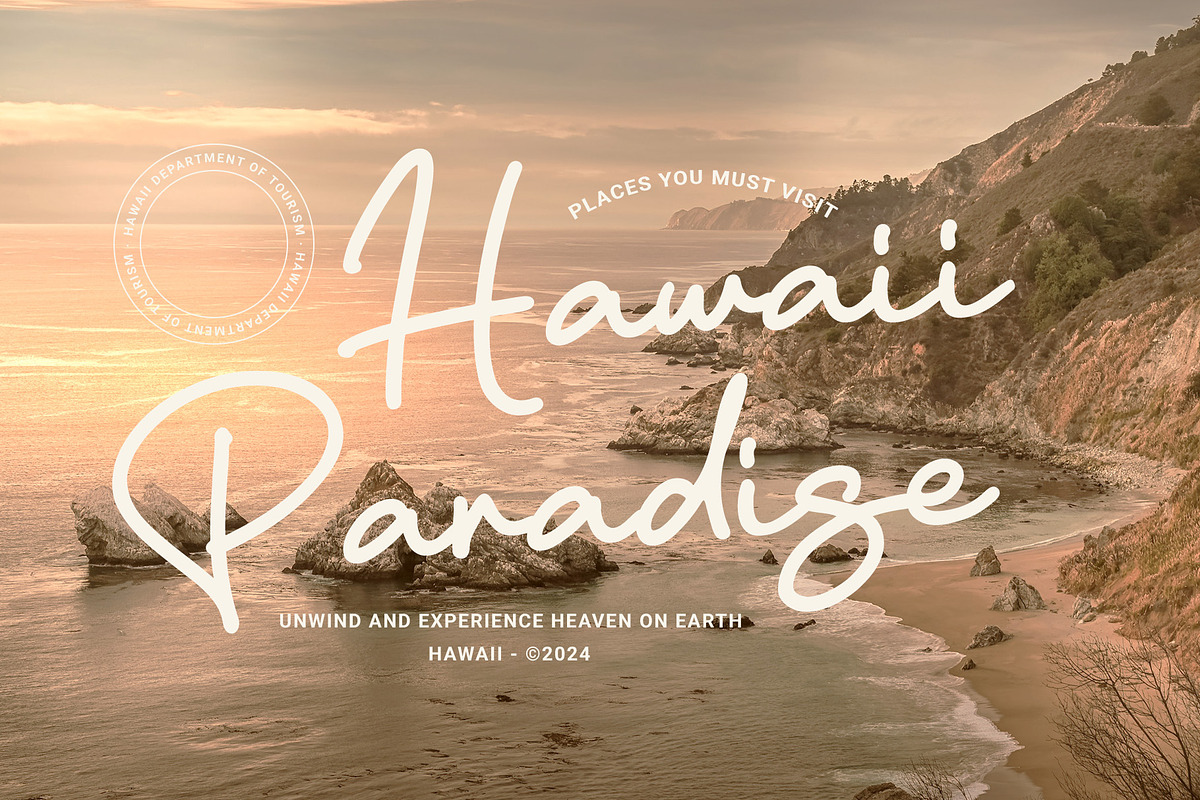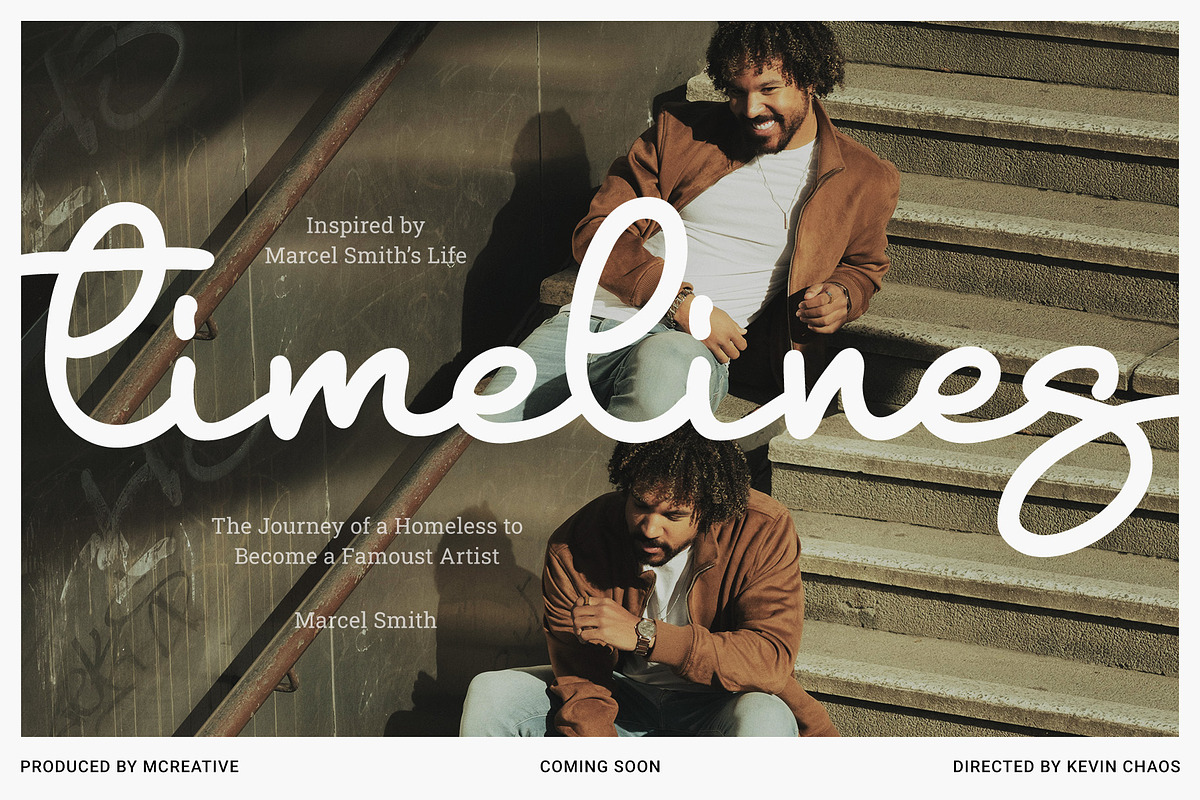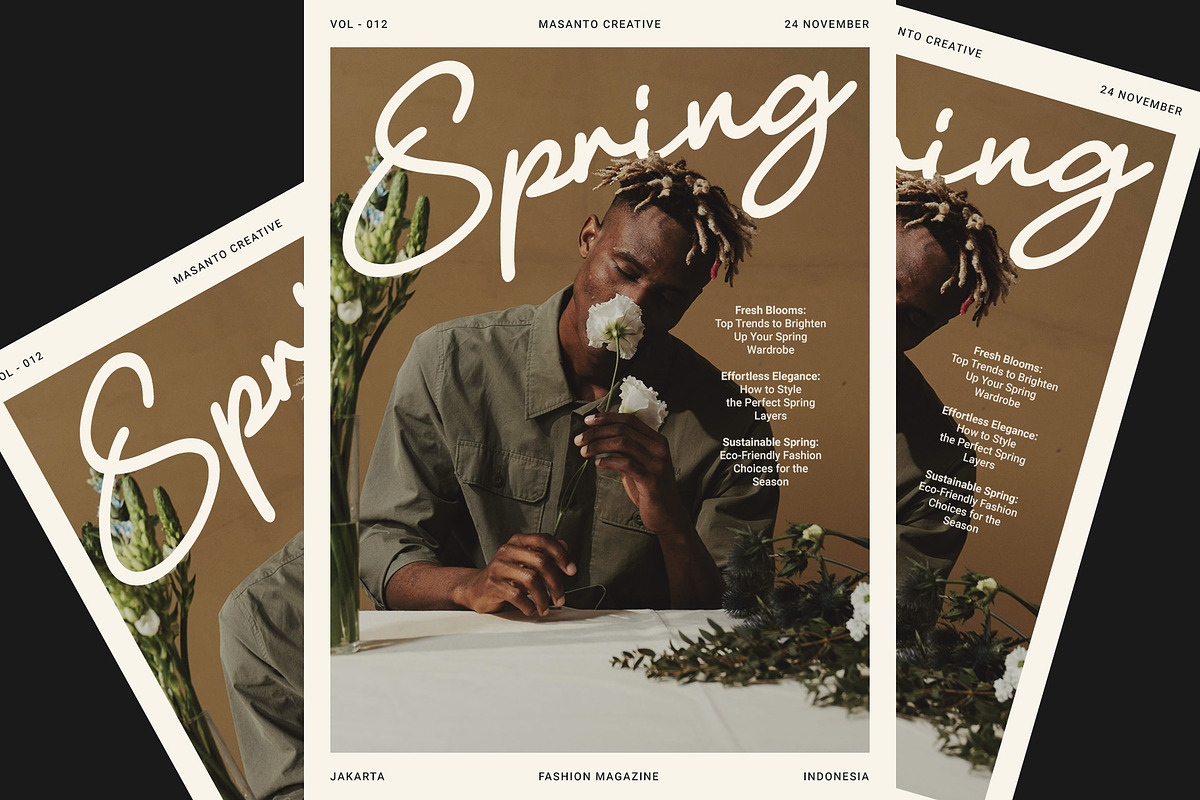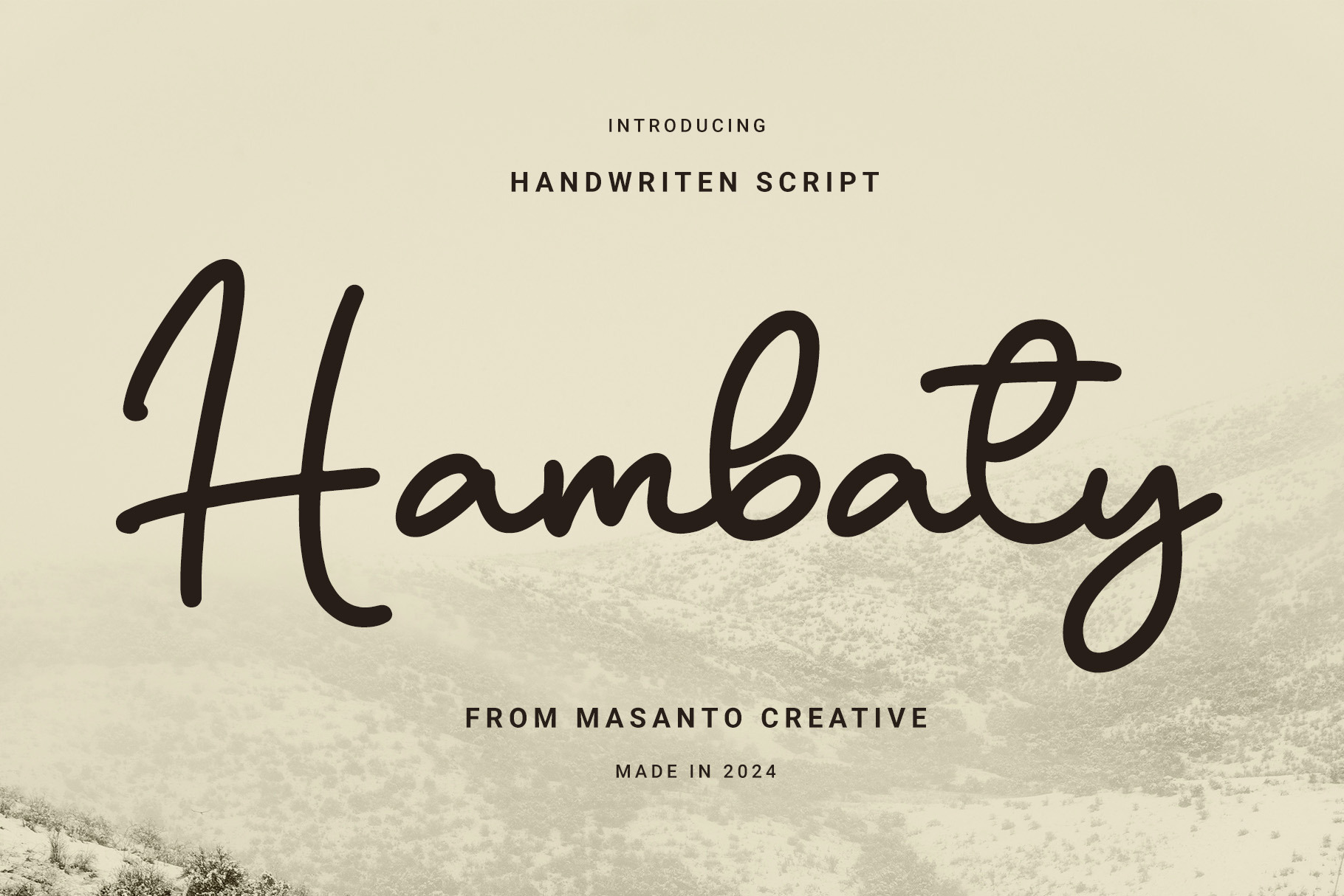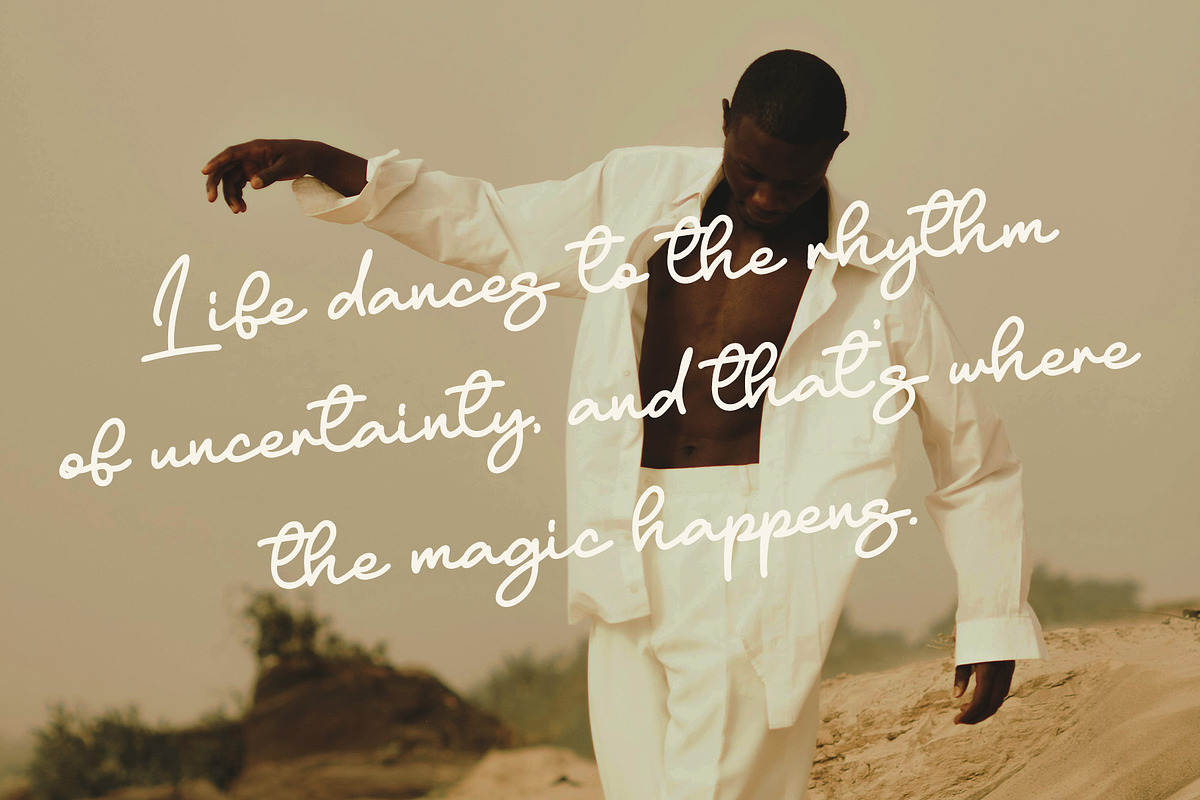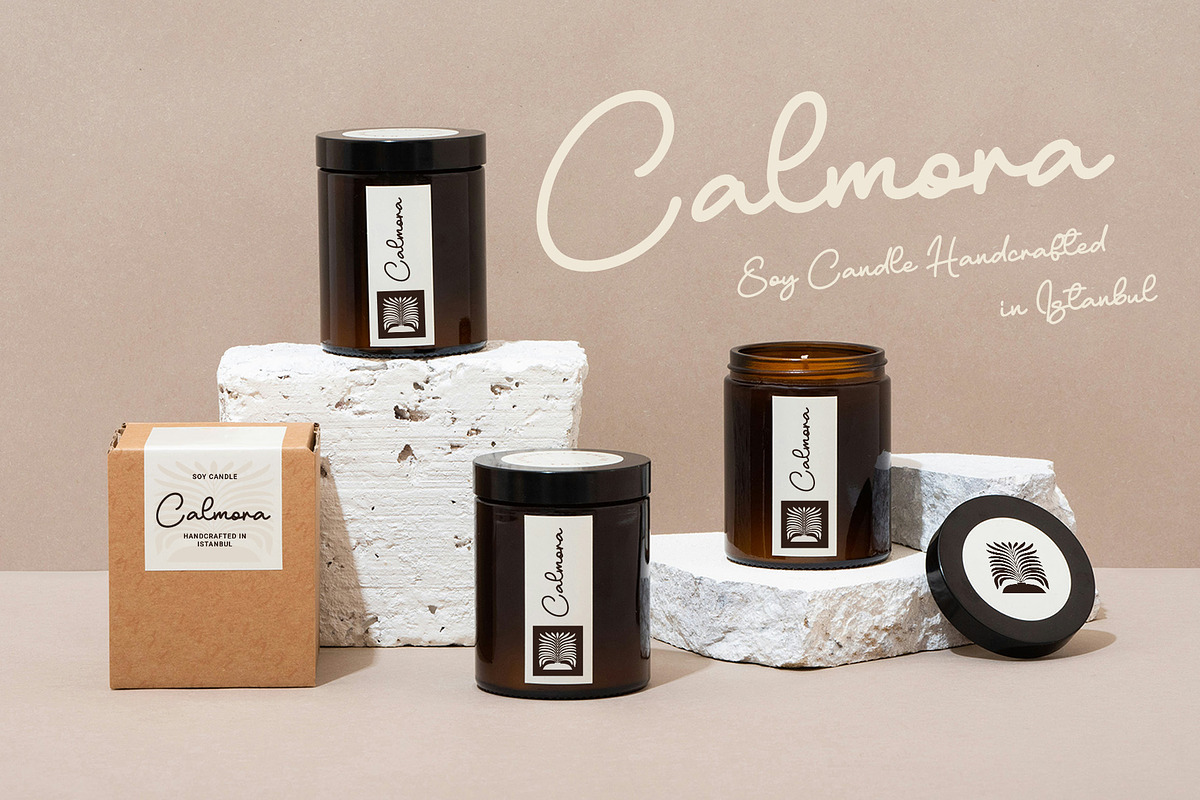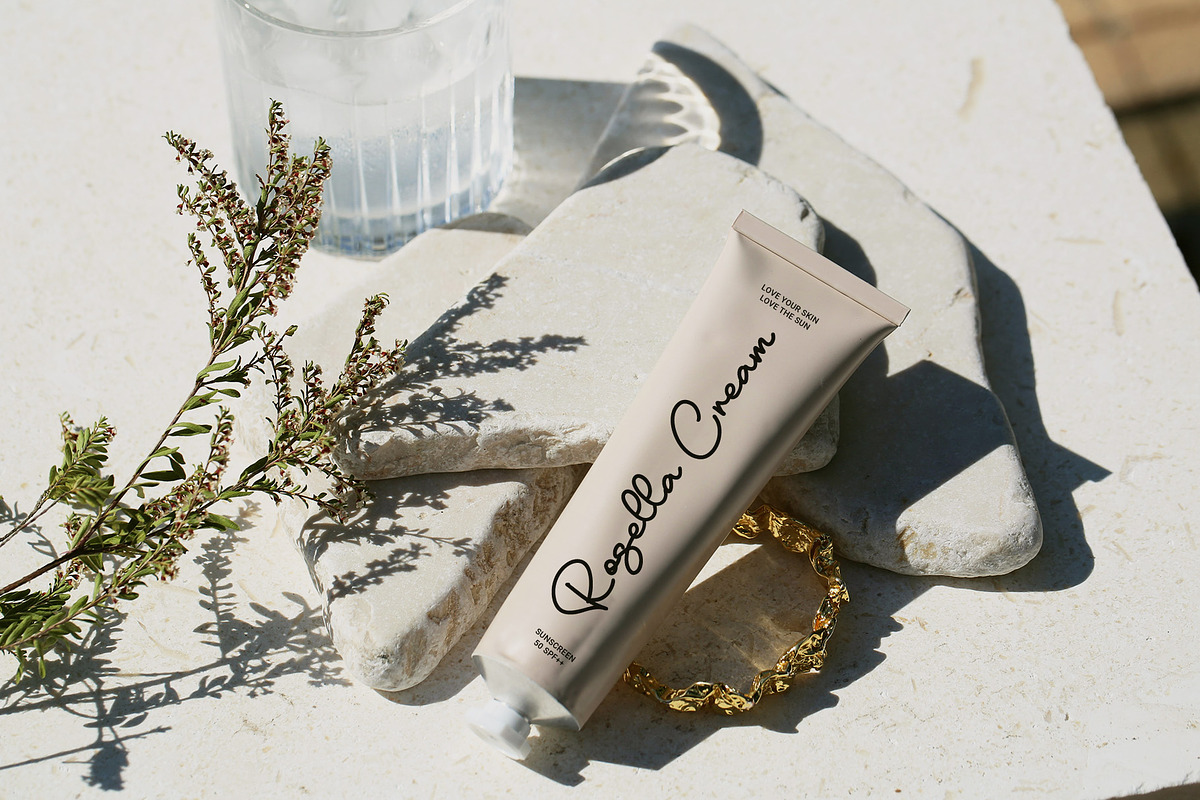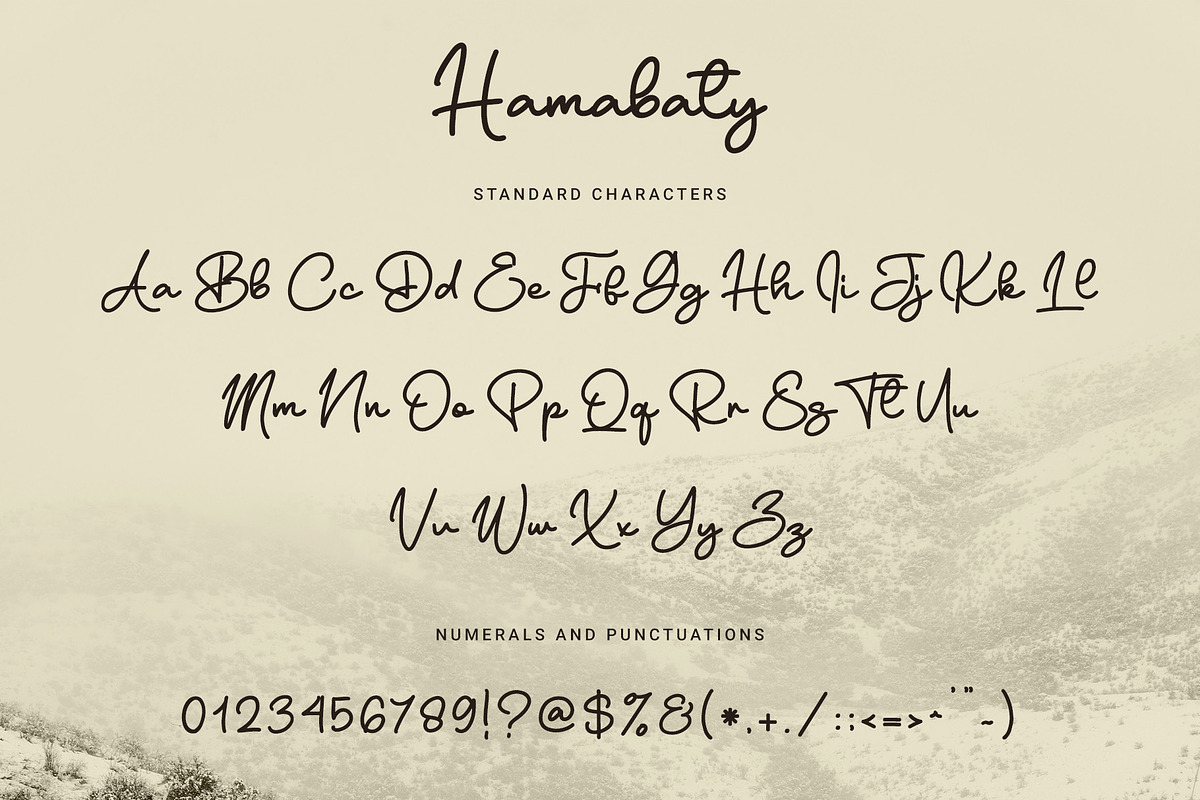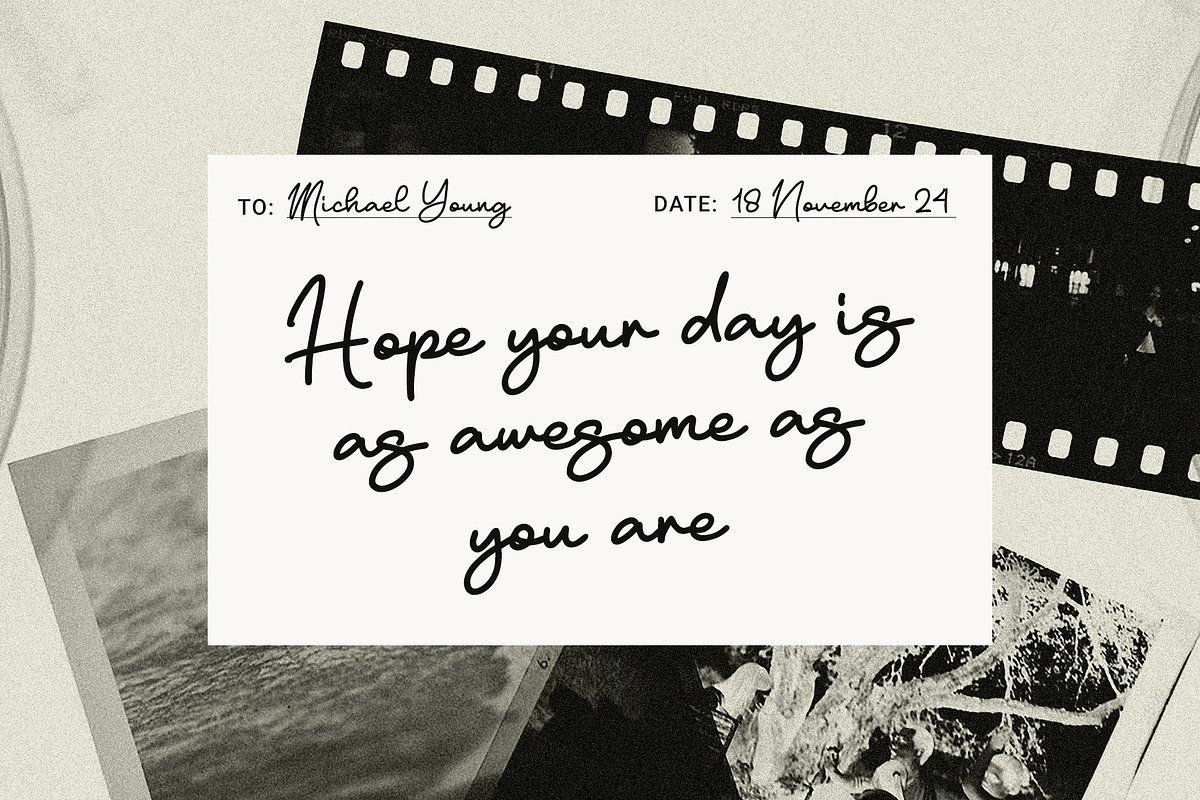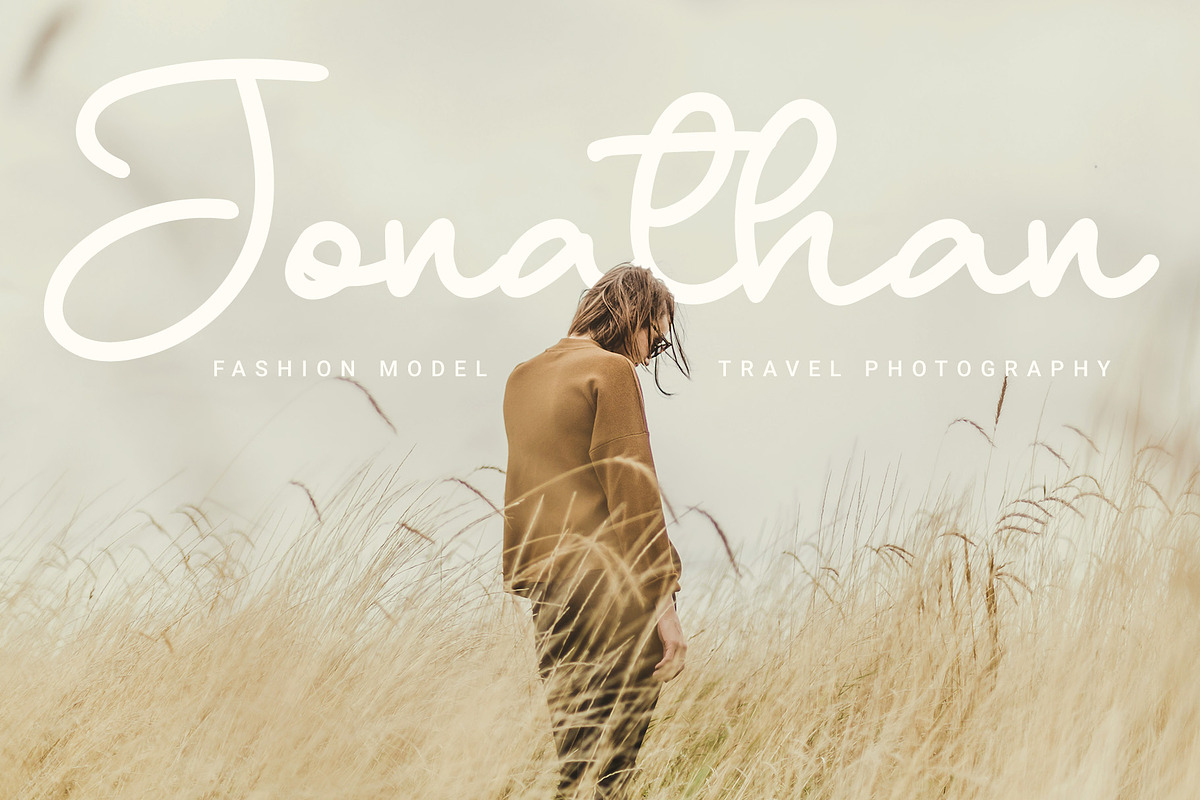
Hambaty – Script Font
Product Detail Hambaty with a handwritten and script style makes this font look elegant, natural, and perfect for any awesome projects that need handwriting taste.
- Ligature & Stylistic alternate